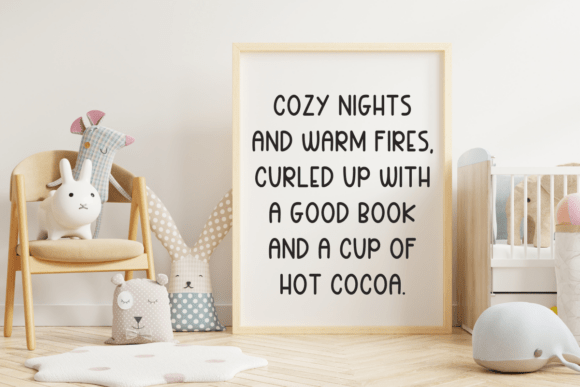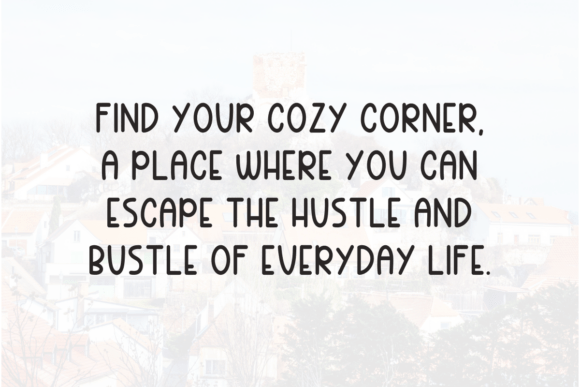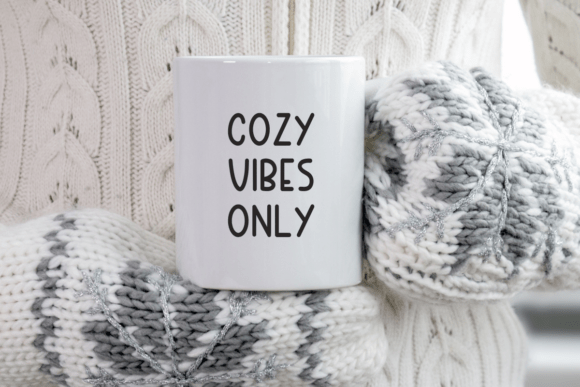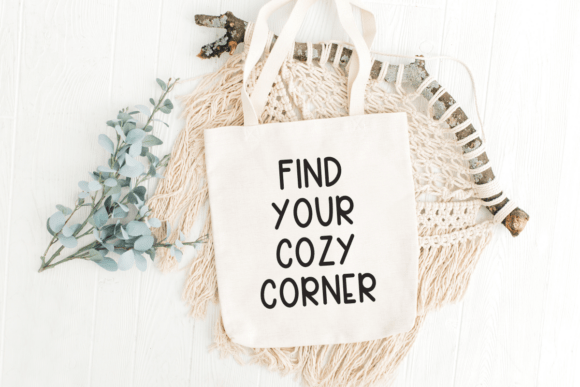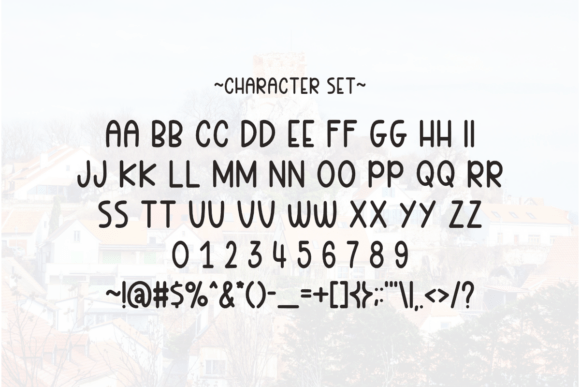
Introduction to Kozy Hand Font
Have you ever stumbled upon a quirky, handmade label at a local market or craft fair, and felt instantly drawn to its unique charm? That’s exactly the feeling you can bring to your next creative project with the Kozy Hand Font. This playful handwritten font is designed to add a touch of personality to any design, making it a valuable resource for designers looking to stand out.
With its clean strokes and casual charm, the Kozy Hand Font is perfect for branding, DIY crafts, packaging, and more. Whether you’re working on a high-quality design or need a free download for a quick project, this font is sure to impress. Its transparent background and high-quality design make it easy to integrate into any creative project, from digital designs to physical crafts.
Key Features of Kozy Hand Font
- High-quality, handwritten font with a unique and creative touch, perfect for design projects that require a personal and artistic feel.
- Unique characteristics include subtle texture and imperfections that give the font a handmade feel.
- Ideal for use in creative projects, such as logo design, typography, and branding materials.
Honest Review: Kozy Hand Font
I recently had the chance to work with the Kozy Hand Font and I must say, I’m impressed. As a designer, I’m always on the lookout for high-quality design resources to elevate my creative projects. This font fits the bill perfectly.
What works well: ✨ The Kozy Hand Font has a beautiful, handwritten feel that’s perfect for adding a personal touch to your designs. The font is highly customizable, allowing you to adjust the size, color, and style to suit your needs. Plus, it’s free to download, which is a major bonus.
However, there are a few limitations to be aware of: ⚠️ The font is only available in a few weights, which may limit its use in certain situations. Additionally, the font may not be suitable for small text sizes, as the letters can become difficult to read.
Overall, I’m a fan of the Kozy Hand Font. It’s a great addition to any designer’s toolkit, and I’d definitely recommend it to anyone looking for a high-quality, free design resource.
Kozy Hand Font
Kozy Hand Font is a high-quality design resource perfect for creative projects. Its unique, handwritten style can add a personal touch to any design. The font is available for free download, making it an excellent choice for designers on a budget.
Tips for Getting the Most Out of Kozy Hand Font
To get the most out of Kozy Hand Font, use it with a transparent background to create a sense of depth and dimensionality. Experiment with different font sizes, colors, and styles to create a unique look. You can also combine Kozy Hand Font with other fonts to create a visually appealing design.
Kozy Hand Font is perfect for designing invitations, social media graphics, and other creative projects that require a personal touch. Its high-quality design and transparent background make it an excellent choice for designers who want to create professional-looking designs without breaking the bank.
Alternatives to Kozy Hand Font
Great Vibes is a high-quality script font perfect for creative projects that require a touch of elegance and sophistication. It features a transparent background and is ideal for use in logos, branding, and marketing materials. When to use: For projects that require a luxurious and refined feel. How it compares to Kozy Hand Font: Great Vibes has a more modern and sleek design compared to Kozy Hand Font’s more casual and handwritten feel.
Carolyna Pro is a modern and elegant script font that is perfect for designers looking for a high-quality design resource. It features a transparent background and is ideal for use in creative projects such as branding, packaging, and marketing materials. When to use: For projects that require a sophisticated and refined feel. How it compares to Kozy Hand Font: Carolyna Pro has a more refined and polished design compared to Kozy Hand Font’s more casual and handwritten feel.